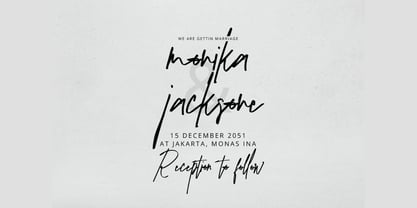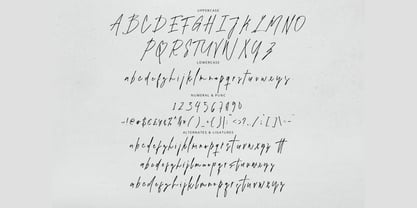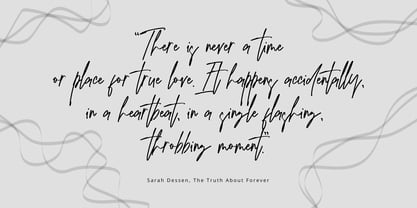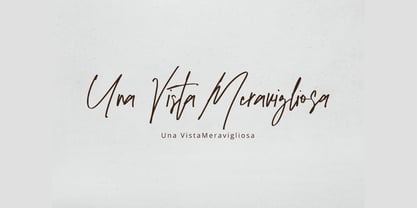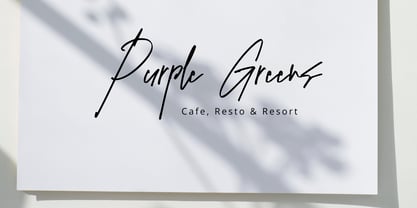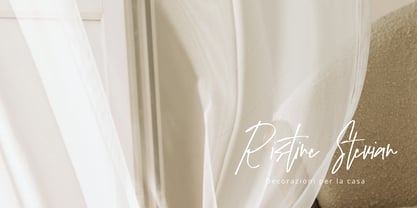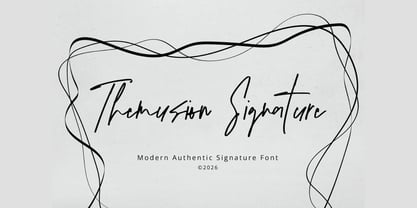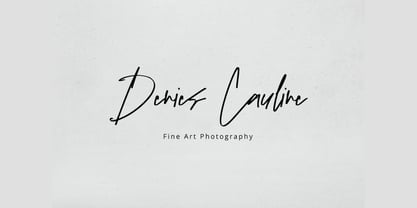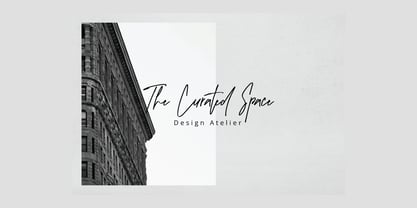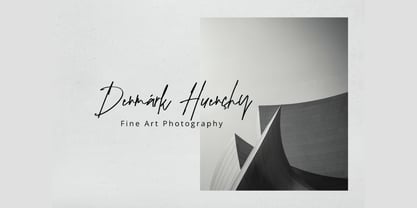
Themusion Signature
The Themusion Signature Font Family was designed by Dzulka Elfira and published by Tebaltipis Studio. Themusion Signature contains 1 styles. More about this family
Themusion Signature – Modern Authentic Signature Font
Bring a touch of effortless sophistication to your work with Themusion Signature, a sleek script designed to reflect genuine, modern handwriting. Featuring clean mono-line strokes, natural flows, and expressively drawn letterforms, this font captures the raw, candid feel of a real pen signature.
Themusion Signature is ideal for high-end logo design, luxury visual identities, lifestyle packaging, editorial headers, and personal watermarks. Its minimalism allows it to pair seamlessly with both bold sans-serifs and classic serif fonts.
Themusion Signature Features :
Uppercase & Lowercase International Languange & Symbols Support Punctuation & Number PUA Unicode Range Standard Ligatures Discretionary Ligatures Stylistic Alternates Stylistic Set.